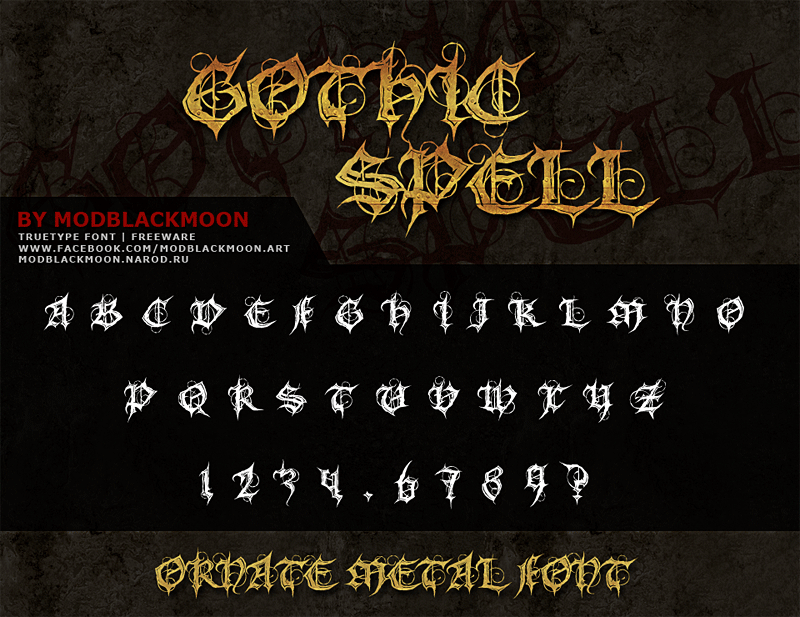
Font name: | MB Gothic Spell |
Author: | Irina ModBlackmoon |
Note by Irina ModBlackmoon | |
TTF Font, based on traditional gothic capital letter shapes with some metal infuences and extra ornaments [Hand-drawing + Illustrator]. Incl. English letters and Numbers, some most common signs, some letters from nordic languages. LICENSE: Free for personal and commercial use. For logo design credits are required. |